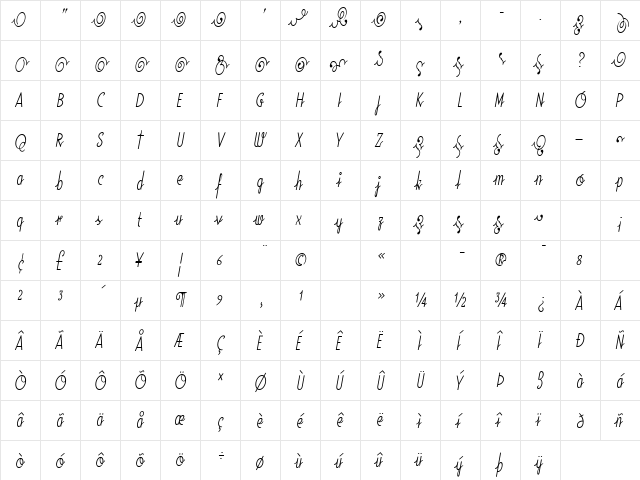
SodaScriptExtras-Light Light Font Preview
Design Context for SodaScriptExtras-Light Typeface
SodaScriptExtras-Light brings a calligraphic fluidity to the page — its connecting strokes and expressive curves give it an unmistakably human quality. The delicate stroke weight brings airiness and refinement to layouts.